i love typography
I love typography was born, as its creator John Boardley puts it, on the 8th of August, 2007 with the clear goal of bringing typography to the masses. And now, with over 16,000 subscribers and counting, it has undoubtedly succeeded in doing just that.
The first thing that strikes you upon entering the site is the prominent masthead, which at the time of writing is set in Le Monde Livre from the Porchez Typofonderie; a lovely typeface designed especially for legibility at large point sizes. The masthead also sets up the primary color tones for the site: a simple pallete of black, white, and red. And as we’ll see later, there’s a little more to this masthead than meets the eye.
From here on the site relies heavily on the ever popular Georgia; including links, body text, and post titles. And to balance things out, Lucida Grande is used for the bylines, subheadings, and inline blockquotes. The two typefaces mix well, and provide a pleasant balance between the serif, and sans.
what is love?
There are a lot of intriguing details that make iLT not only an excellent read, but also a joy to look at.
I particularly like the execution of post titles. The bold, center-aligned title stands out, while the date and comment count sit above; parts of which use contrasting red type that really catch your attention. The byline also sets up a nice contrast with wide letter spacing, and a soft gray color. Finally, a simple leaf ornament at the end ties it all together.
Another great feature of iLT is the changing masthead. Every post on the website has a unique image, usually set in a typeface featured in the article, or one appropriate to the topic. Some stick to the color scheme, while others take a few understandable liberties. To make things a little more fun, there are often prizes to the first reader who can correctly identify the font used.
Shifting our gaze to the right, we’ll see that iLT has even more to offer for those seeking typographical enlightenment. The sidebar contains the usual blog-related links, but it’s the secondary sidebar that will likely catch your attention, with several fonts featured for each month, it takes up more vertical space than you can shake a ruler at. Though it’s certainly not space wasted.
You might also notice the subtle use of negative space in the sidebar’s right-hand corner, where you can make out the shape of the standard feed icon, along with the feed information and subscription options.
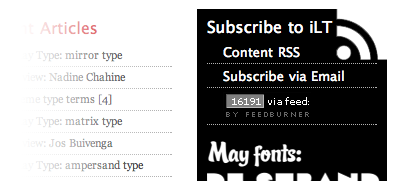
There’s also another feature, which I imagine is often missed, and that is the menu accessible from the navigation bar at the top, labeled Typography tags & search. Once clicked, it reveals a hidden menu just below the masthead. And though it duplicates some of the content from the sidebar, I find the multi-column format is much more readable, and as such deserves a mention.
criticism
A site devoted to typography and its usage sets high expectations for design. And iLT rises bravely to this challenge. However, further exploration reveals some parts of iLT that could use just a bit more love.
Firstly, the topmost navigation bar—despite the attractive two-tone color—feels a little confusing. The items are wordy, and it’s hard to tell exactly what they do in some cases. Perhaps they could be simplified and consolidated into a smaller menu that would distract you less from the masthead below. Or even removed altogether and placed in a more prominent place in the sidebar.
Another thing I noticed was that some parts of the site were set, as I’ve mentioned, in Lucida Grande. The problem was, I didn’t have that font installed—being a PC user, and therefore in most cases I saw the alternative Tahoma, and in the case of blockquotes, the default Times New Roman since no alternative was defined (see image below). Not a deal-breaker, but a better CSS alternative would be something like Lucida Sans Unicode; a very similar font available on most Windows PCs.
The last thing that irks me is the lack of contrast in the fonts for the month sidebar. Yes, white on black is about as high contrast as you can get, but I’m referring to the name of the month. Yes, it is there. And there is more whitespace above it than the other fonts, but since it’s white like the rest, it’s hard to spot at a glance. Again, however, this is easily remedied; either by adding a small horizontal rule between months, or better yet, changing the color of the month name to a more subtle gray.
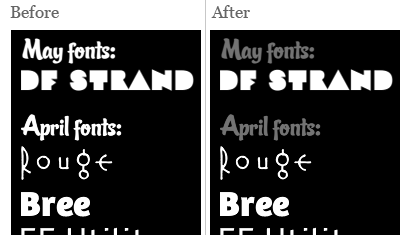
conclusion
Overall, iLT is a success; both visually, and content-wise. As it says in the footer. “Typography exists to honor content.” (quoted from The Elements of Typographic Style). And this is clearly a motto that iLT takes to heart.
Indeed, it goes without saying; I love typography — don’t you?